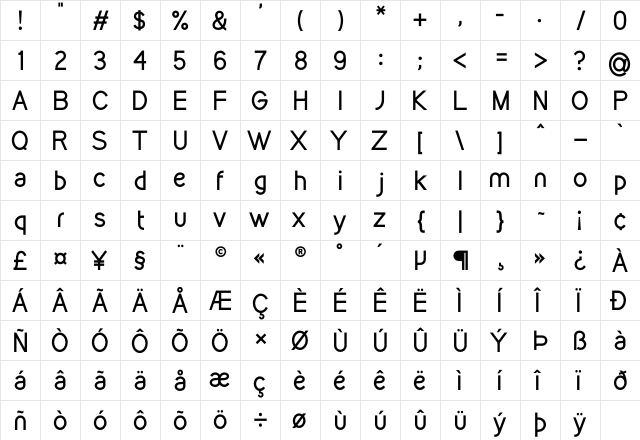
Kirvy Bold
| Foundry | Youssef Habchi |
| Designer | Youssef Habchi |
Design Context for Kirvy Typeface
Kirvy takes a measured approach to typography — its balanced proportions and neutral character make it a reliable workhorse for both digital and print work. Its bold stroke weight gives it real presence on the page.
Pro Tip: Pair Kirvy with a font of contrasting weight or personality to build a more expressive typographic hierarchy.